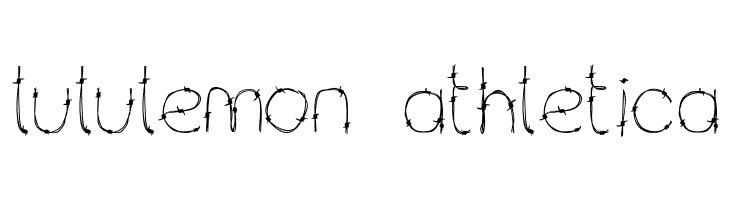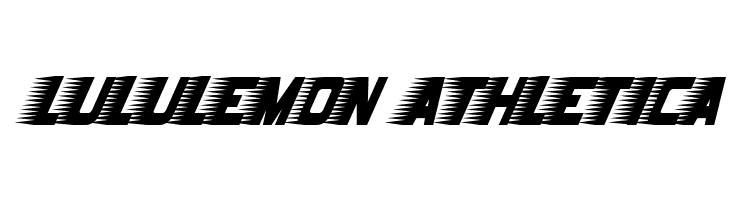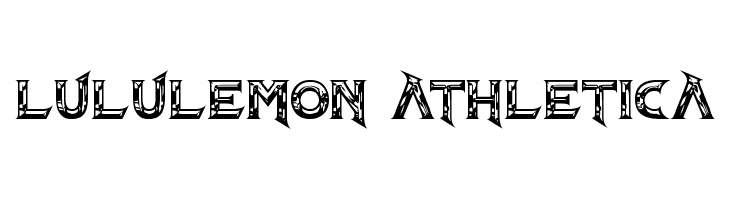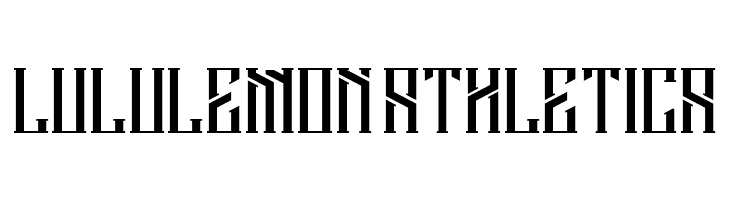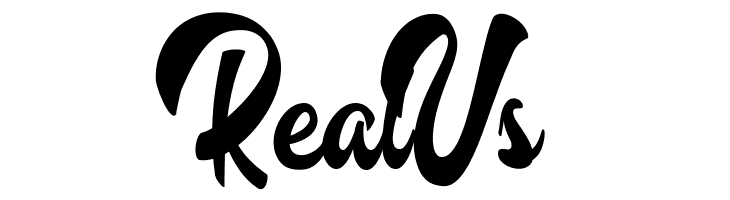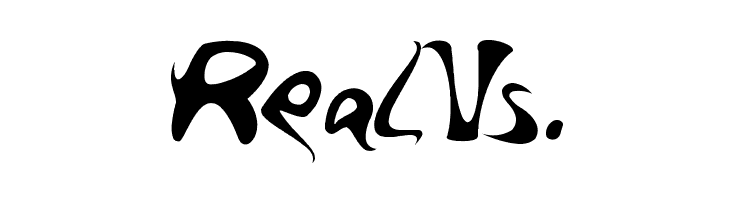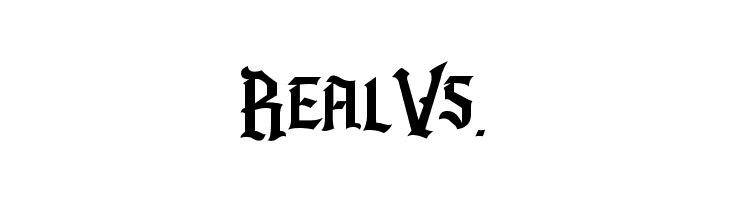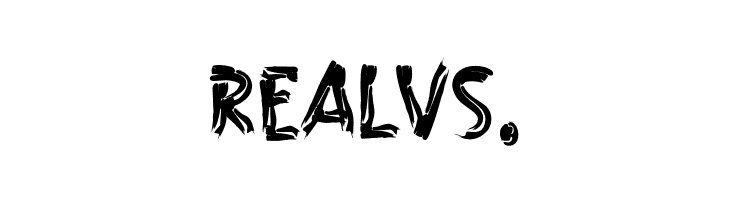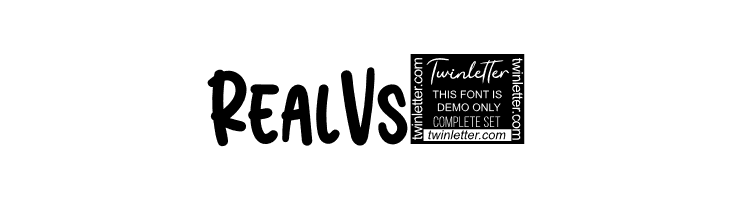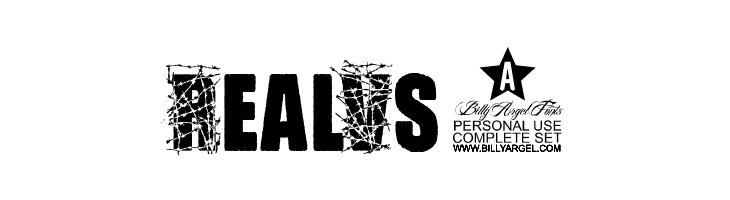
A bold, rugged font with jagged edges and a strong visual impact.
A rugged, italicized font with a bold, jagged appearance.
A bold, angular font with intricate tribal-like patterns.
A rugged, distressed font with jagged, uneven edges for a bold, energetic look.
A bold, graffiti-inspired font with jagged edges and dynamic strokes.
A bold, rugged, hand-drawn font with a graffiti-like style.
A decorative font styled like barbed wire, offering a rugged and edgy appearance.
A modern, geometric font with bold curves and sharp angles.
A bold, condensed font with a classic yet modern Roman style.
A bold, Western-themed font with strong serifs and a vintage appeal.
A bold, geometric font with high contrast and a Gothic-inspired style.
A dynamic and elegant script font with bold, sweeping letterforms and high contrast.
A bold, gothic blackletter font with sharp angles and intricate detailing.
A bold, Gothic-style font with sharp, angular lines and pointed serifs.
A bold, dynamic font with a slanted, energetic design and gradient effect.
A bold, italicized font with dynamic, slanted characters and a sense of motion.
A bold, thorny font with sharp, angular lines and a striking appearance.
A bold, brush-style font with a lively, handcrafted appearance.
A bold, dynamic script font with interconnected, flowing letters and a modern, playful style.
A rugged, barbed wire-inspired font with a bold, industrial look.
A bold, barbed wire-themed decorative font with a rugged, distressed appearance.
A bold, geometric sans-serif font with a modern, industrial style.
A bold, playful font with rounded, whimsical characters.
A bold, brush-textured font with a rugged and dynamic style.
A bold, brush-textured font with dynamic, flame-like strokes.
A bold, flame-inspired decorative font with dynamic, jagged edges.
A bold, playful font with a hand-drawn, marker-like style.
A flowing, cursive script with elegant, sweeping strokes and a handwritten appearance.
A bold, impactful font with thick, uniform strokes and slightly condensed characters.
A bold, distressed font with a vintage, grunge aesthetic.